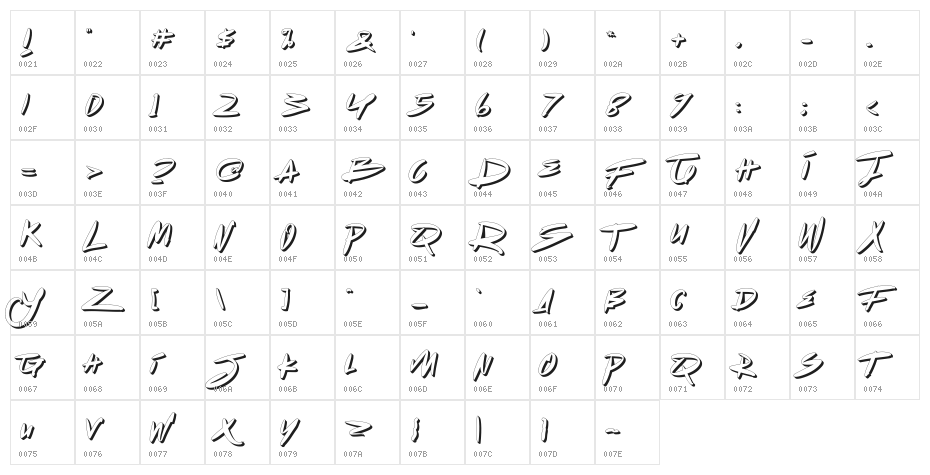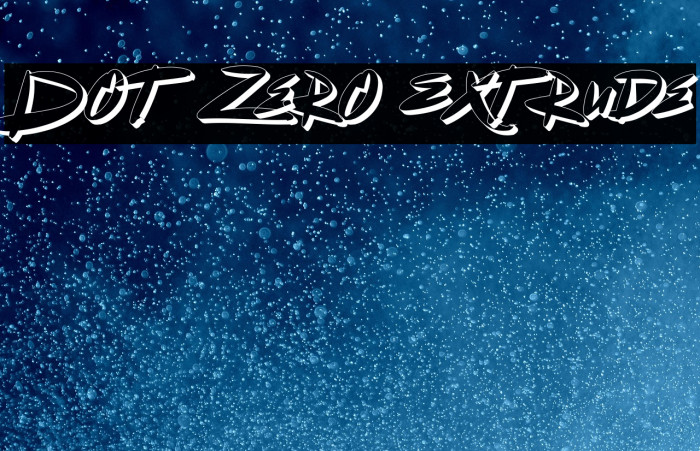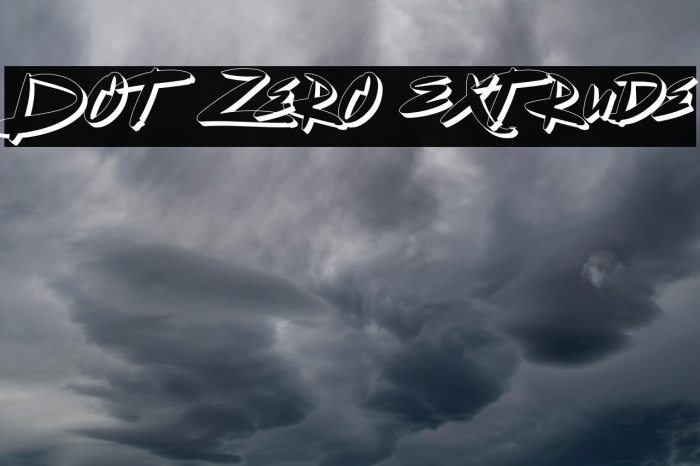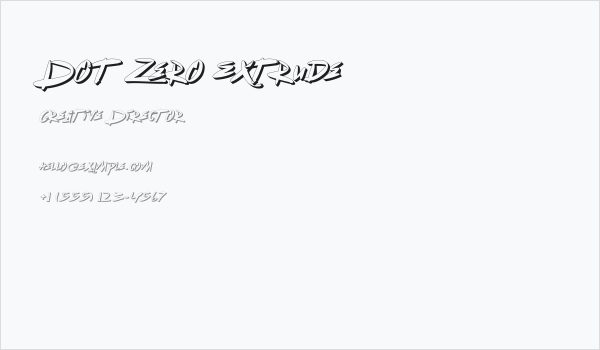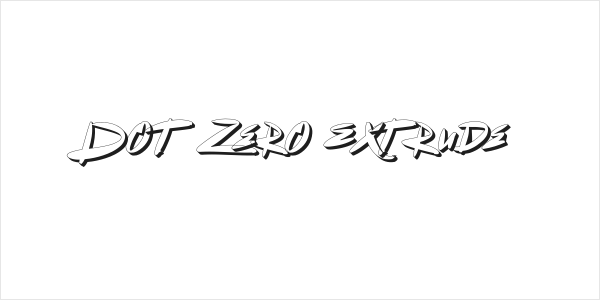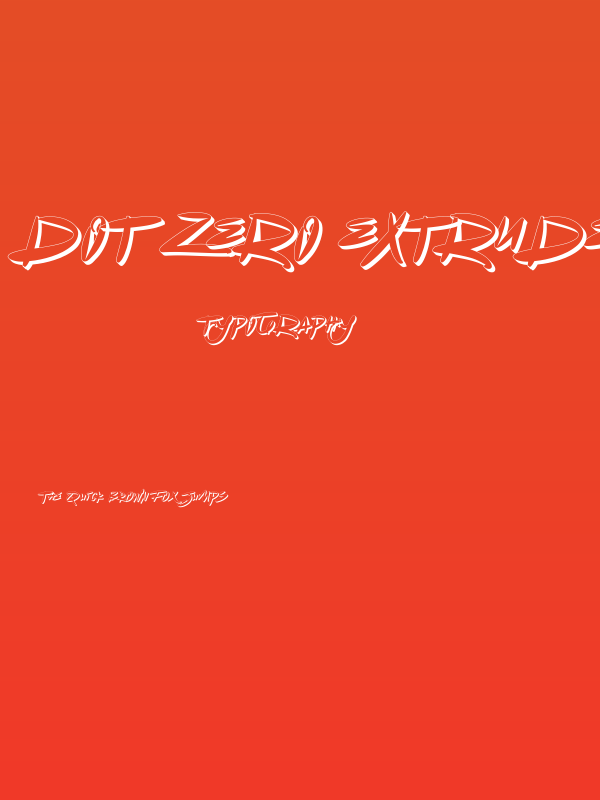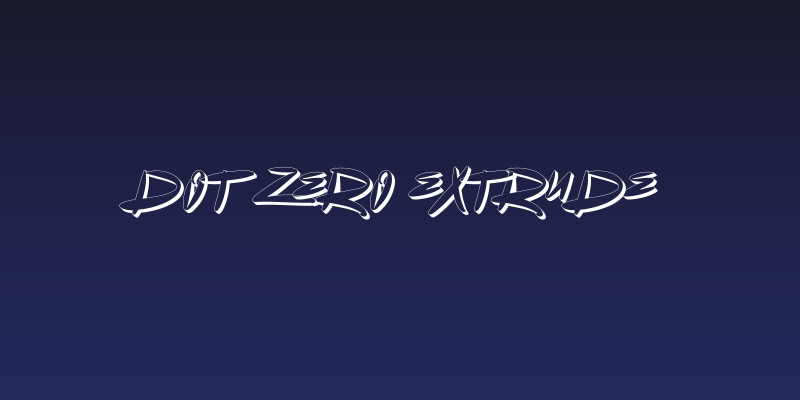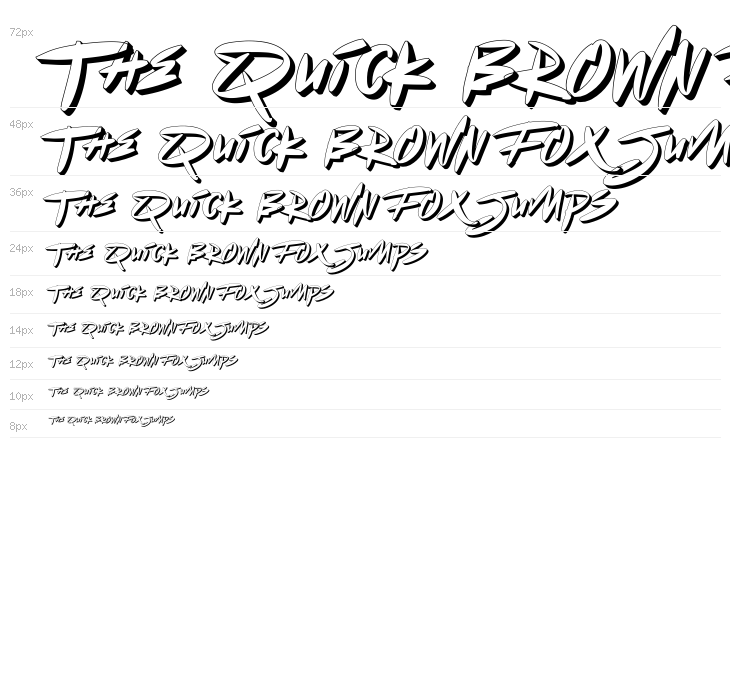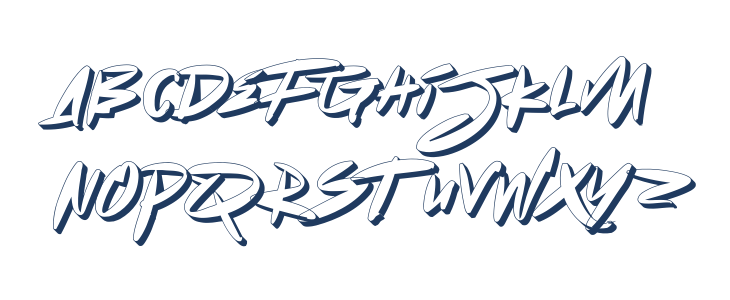
Dot Zero Extrude Font
Dot Zero Extrude Description
This font features a dynamic and bold script style with a three-dimensional extruded effect, giving it a striking and modern appearance. The letters are characterized by fluid, sweeping strokes that convey a sense of motion and energy. The uppercase and lowercase letters maintain a consistent style, with exaggerated curves and angles that enhance the font's expressive nature. The numbers and special characters are designed to match the overall aesthetic, ensuring a cohesive look across all text. The font's unique extruded shadow adds depth, making it ideal for eye-catching designs.